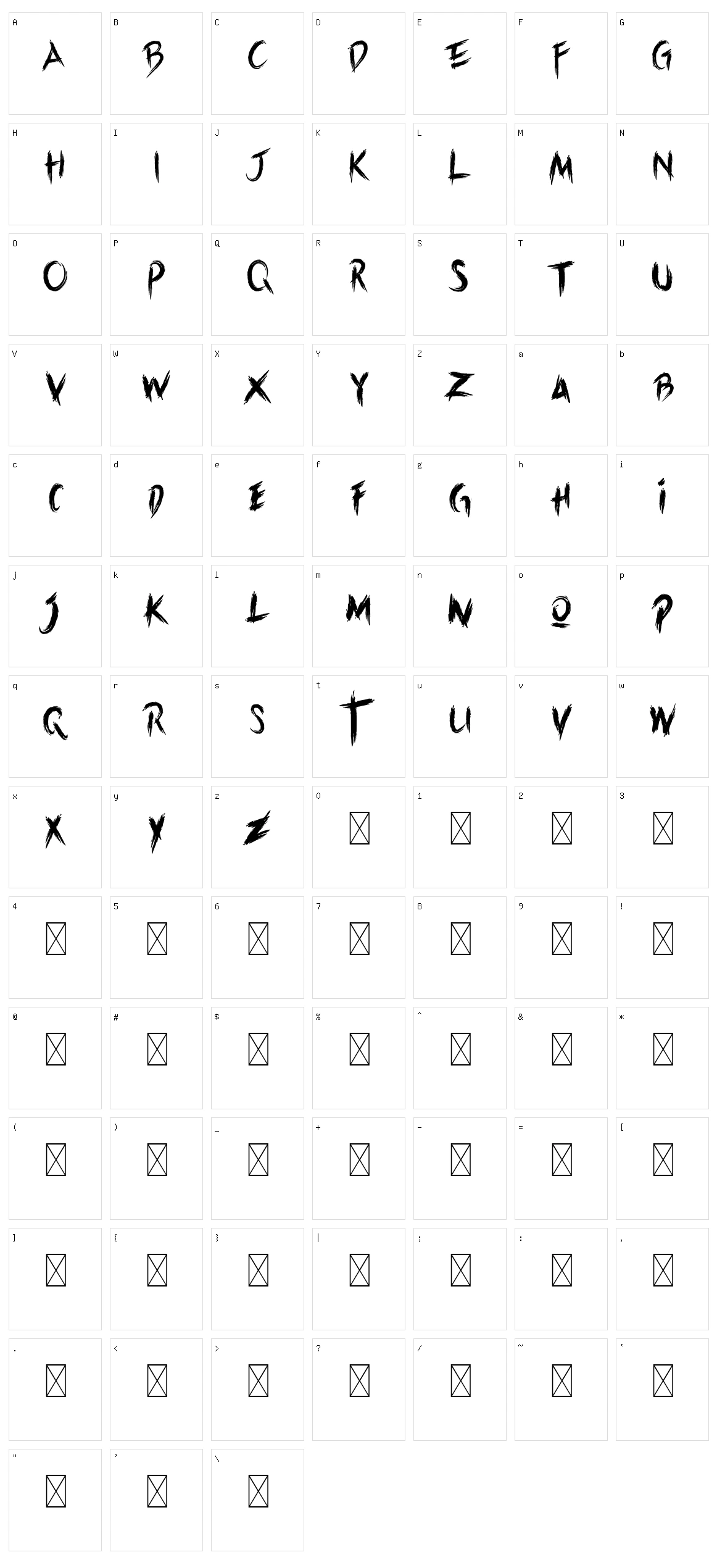
The free font Blackdeath is carefully designed by Septiandika Pratama, showcasing a thoughtful balance of creativity and usability and falls under the Trash font style. When you download the ZIP file, it contains only 159.14 KB of font files, making it lightweight and quick to download. Please review the license details below to understand permitted usage and distribution rights. If license information is not available, we recommend using this font for personal projects only or contacting the author directly for commercial usage permissions.